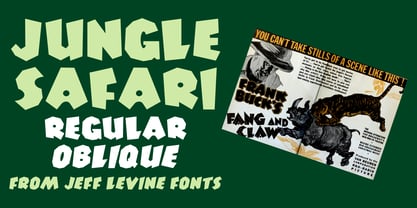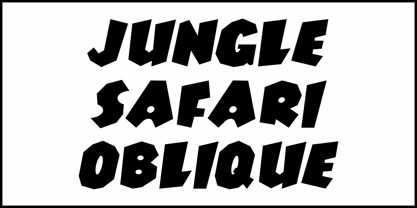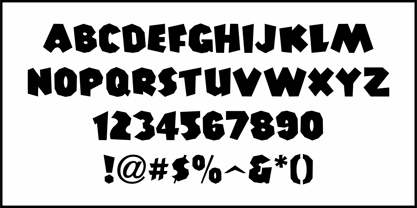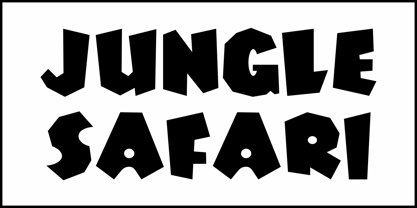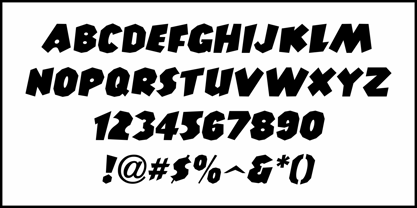
Jungle Safari JNL
by Jeff Levine
In the December 20, 1935 issue of The Film Daily, an ad for "Frank Buck's Fang and Claw" featured an unusual bit of hand lettering.
The extra bold sans serif design gives the appearance of hand cut characters as if either carved from wood or stone. This is now available as Jungle Safari JNL in both regular and oblique versions.
Buck was a well-known big game hunter for his time.